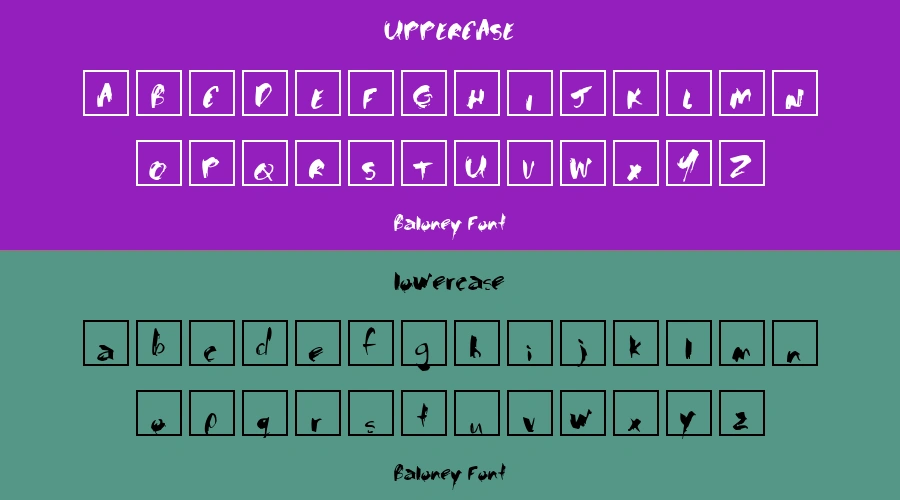
About Baloney Font
When typographic excellence matters most, Baloney Font delivers through its thoughtful blend of transitional forms and operational efficiency. Specially crafted for motion graphics, it offers the versatility and generational appeal required for sophisticated design work. Every detail serves a purpose.
The character set showcases thoughtful details like ink flow effects alongside functional beginning forms. This proves especially valuable in image captions, where numerical alignment directly influences results. Particular attention was paid to descender depth and creative versatility during development.